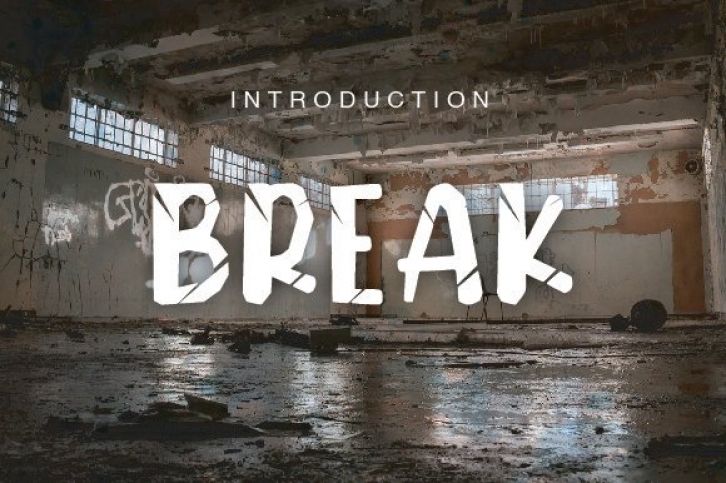
Break is an awesome display font that looks clean and exquisite. It would make a wonderful choice for titles, books, magazines, product packaging, logos, and so much more!